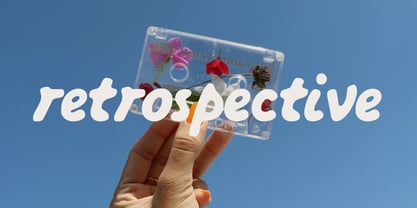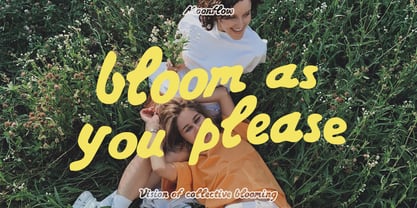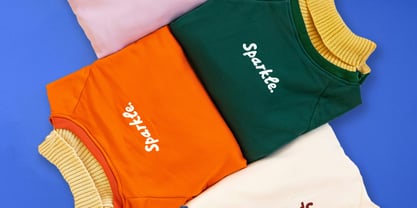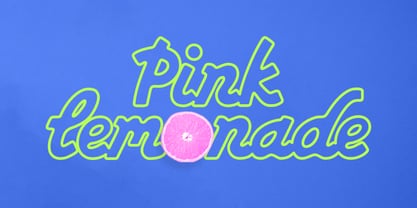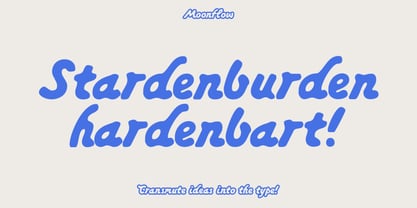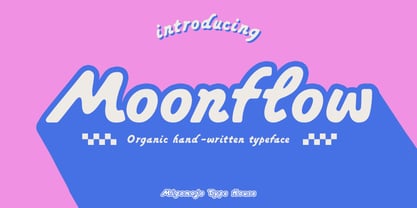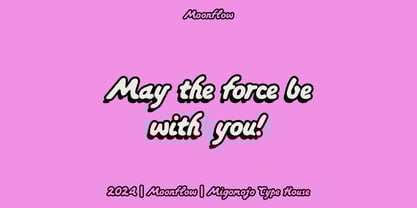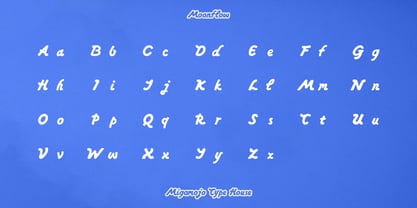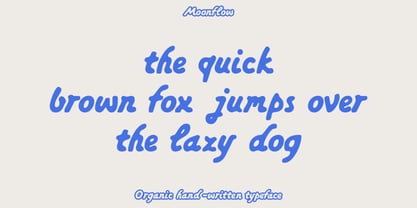
Moonflow
von Migomojo Type House
Die Schriftfamilie Moonflow wurde von Komara Sani entworfen und von Migomojo Type House veröffentlicht. Moonflow enthält 2 Stile und Familienpaketoptionen. Mehr über diese Familie
Introducing Moonflow, handwritten font that blends timeless cursive elegance with a vibrant, retro twist. Moonflow Font is available with 403 glyphs, 2 variety of style and multilingual support. Moonflow is perfect for headline, album covers, posters, digital design, brand collateral and brand identities. Cheers!
Designer: Komara Sani
Foundry: Migomojo Type House